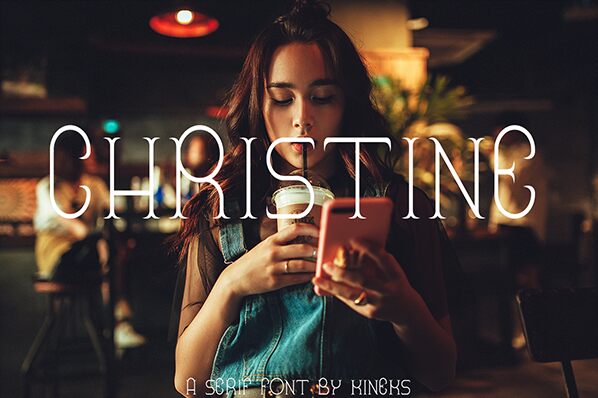
Christine, designed by Bykineks, is a fresh minimalist display font that adds a light modern touch to your designs. With its clean lines and simple elegance, it is perfect for creating a contemporary look in various projects.
Whether you are designing logos, branding materials, or website headers, Christine will effortlessly make your creative ideas stand out.
Give your designs a sleek and sophisticated appeal with this versatile font.